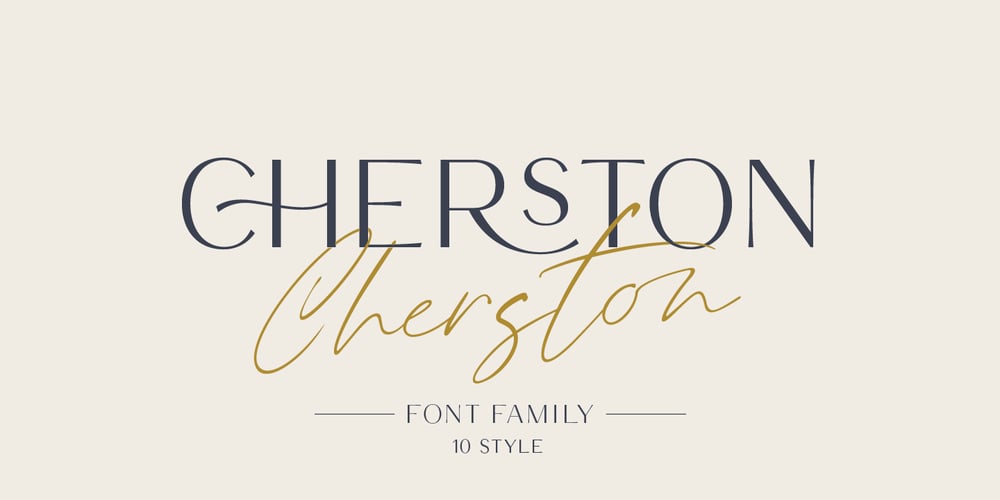
Cherston
Cherston font
Cherston Font Family was designed by Pavel Larin and published by Larin Type Co. Cherston contains 10 styles and family package options. Cherston this is a beautiful font family that includes 10 styles. Display Sans with sharp corners, rounded and rough style, made in three weights, light, regular and bold. This family also includes handwritten script fonts, it fits perfectly with this family, you can use it as an additional or main one. In this font, all the letters are uppercase, you will find a variety of ligatures and alternates that will help you create a unique design for your project, try to change the ligatures and alternatives and you will see how many options you can choose.